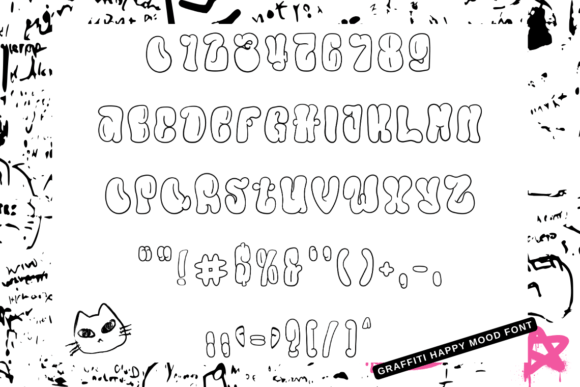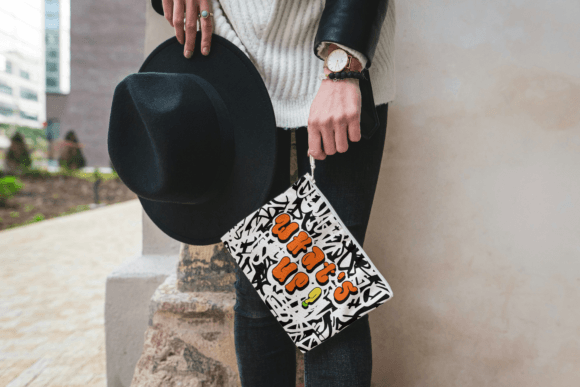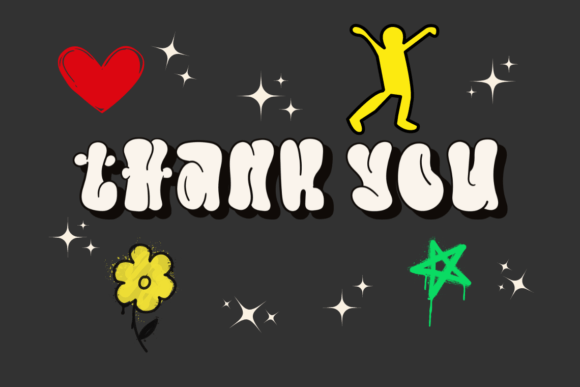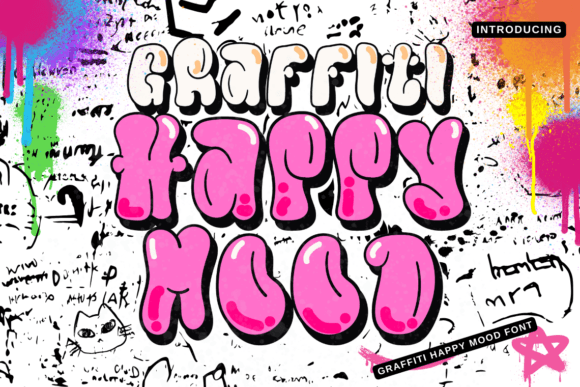
Unleash Your Creativity with Graffiti Happy Mood Font
Are you a designer, crafter, or artist looking for a unique and engaging font to add a pop of personality to your projects? Look no further than the Graffiti Happy Mood Font! This vibrant and lively typeface is infused with the spirit of graffiti, street art, and bold grunge-style graphics, making it perfect for a wide range of creative endeavors.
What is Graffiti Happy Mood Font?
Graffiti Happy Mood Font is a carefully crafted handwritten typeface that embodies the carefree and playful essence of graffiti and street art. Its alphabet designs are bold, colorful, and full of energy, making it an ideal choice for projects that require a fun and lively touch. Whether you’re working on holiday-themed projects, DIY birthday cards, or simply looking to add some personality to your designs, this font is sure to impress.
One of the standout features of Graffiti Happy Mood Font is its versatility. This font can be seamlessly integrated into a multitude of creative projects, including:
- Lettering and logos
- Street art designs and wallpapers
- Advertisements and headers
- Titles, tags, and more
Its adaptability makes it an excellent choice for designers, crafters, and artists who need a font that can keep up with their creative vision.
Endless Possibilities for Expression and Design
Graffiti Happy Mood Font offers endless possibilities for expression and design. Its bold and playful style makes it perfect for:
- Holiday-themed projects, such as Christmas cards, Halloween decorations, or Easter egg designs
- DIY birthday cards, party invitations, and other celebratory materials
- Street art and mural designs
- Branding and advertising materials, such as logos, billboards, and flyers
Whether you’re a professional designer or a crafty hobbyist, this font is sure to inspire your creativity and take your projects to the next level.
Key Features of Graffiti Happy Mood Font
So, what sets Graffiti Happy Mood Font apart from other fonts? Here are some of its key features:
- Handwritten typeface with a bold and playful style
- Infused with the spirit of graffiti, street art, and bold grunge-style graphics
- Versatile and adaptable for use in a wide range of creative projects
- Perfect for lettering, logos, street art designs, wallpapers, advertisements, headers, titles, tags, and more
Tips for Using Graffiti Happy Mood Font
To get the most out of Graffiti Happy Mood Font, here are some tips for using it in your designs:
- Use the font in combination with other design elements, such as shapes and graphics, to create visually appealing compositions
- Don’t be afraid to get creative and try out new and unusual design ideas
- Use the font to add a personal touch to your designs and make them stand out from the crowd